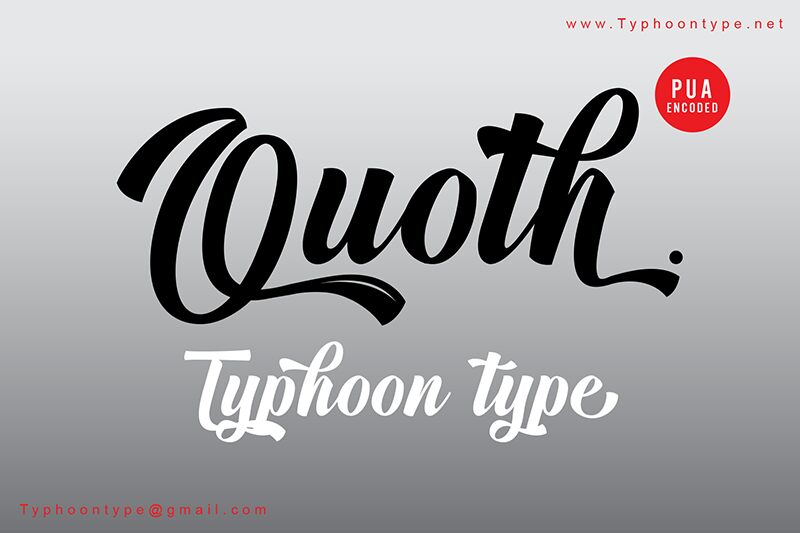
Quoth is a semi-bold font that exudes a sense of smooth rush. Created by designer Typhoon Type - Suthi Srisopha, this typeface is perfect for projects that need a touch of sophistication and modernity. Its smooth curves and clean lines make it suitable for fashion blogs, lifestyle magazines, and corporate branding. The semi-bold weight lends itself to headings, subheadings, and calls to action. Quoth's unique style also makes it perfect for wedding invitations or luxury product packaging. Embrace the smooth rush of Quoth and elevate your design projects to the next level.